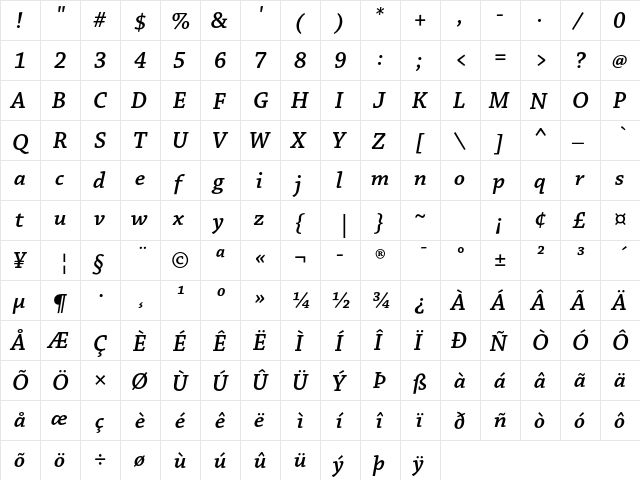
Chaparral Pro Semibold Italic
| Designer | Carol Twombly |
Design Context for Chaparral Pro Typeface
Chaparral Pro is a composed and adaptable typeface that performs quietly and consistently across a wide range of design contexts. Its italic angle brings a sense of urgency and motion to the letterforms. Its bold stroke weight gives it real presence on the page.
Pro Tip: Use Chaparral Pro for emphasis, pull quotes, and subheadings where its slanted energy can add rhythm to the layout.